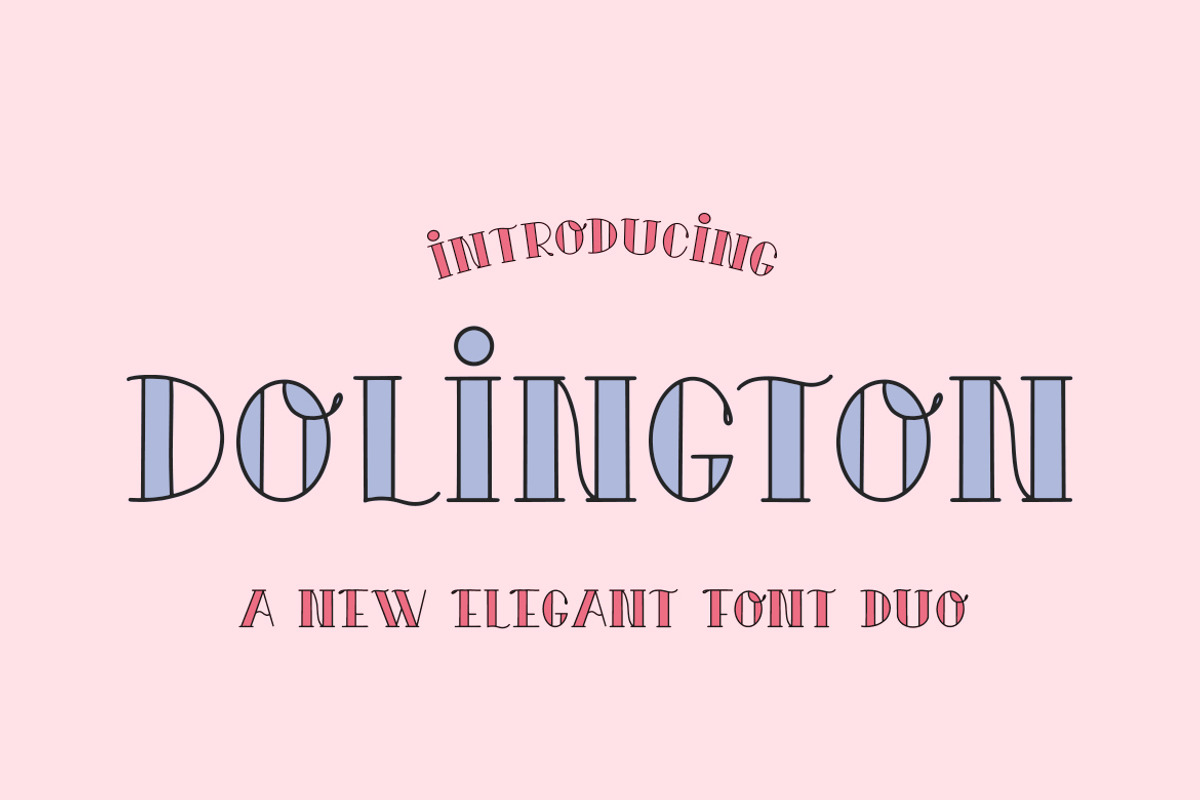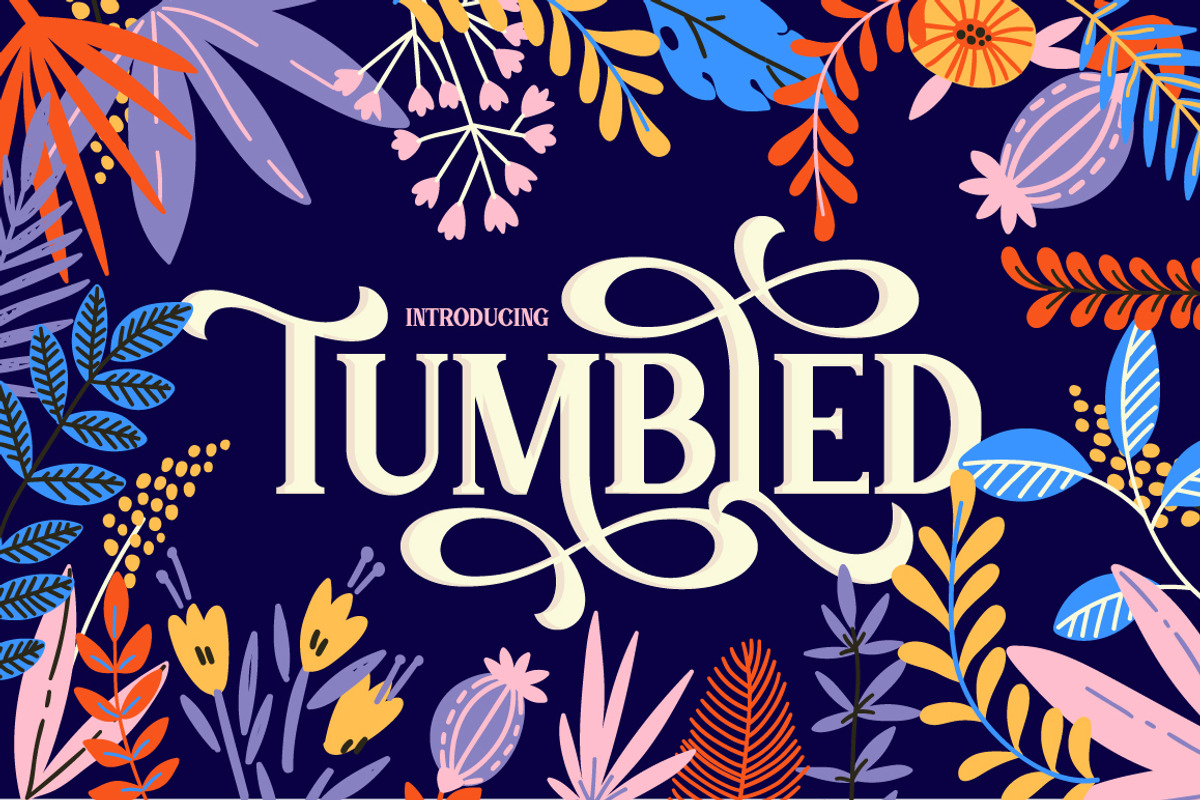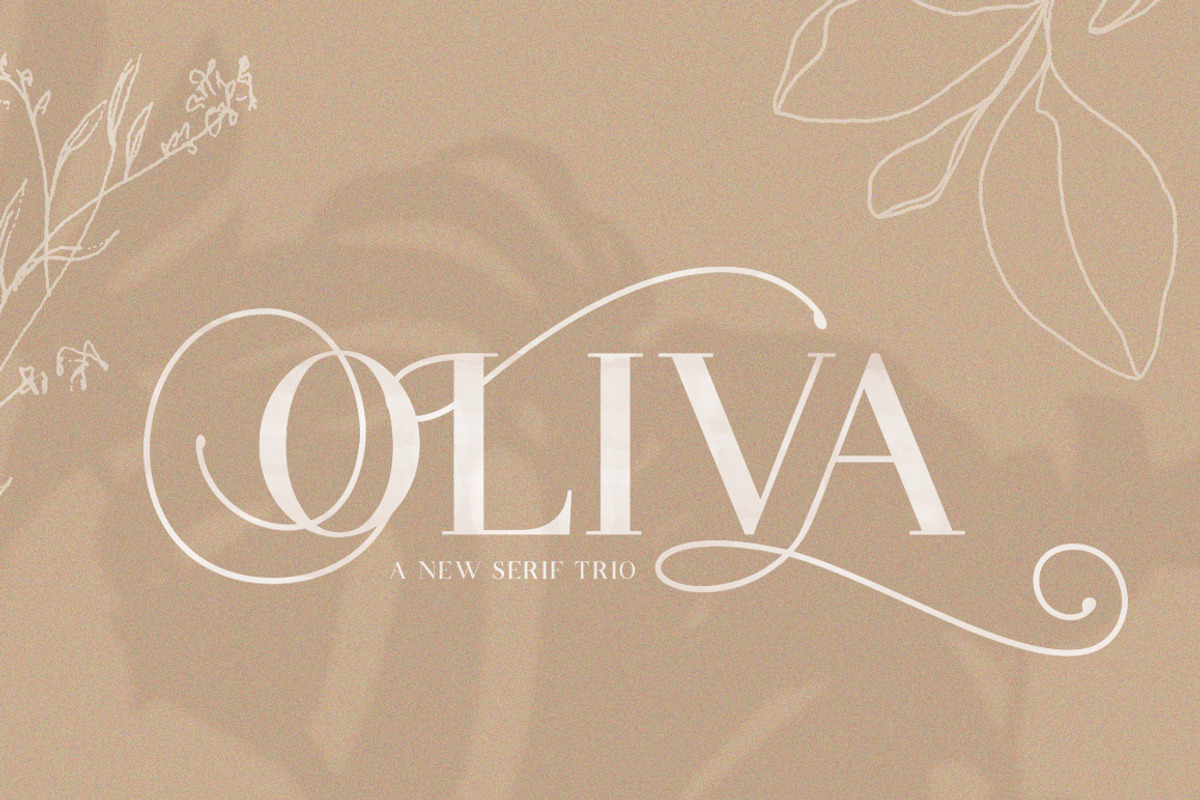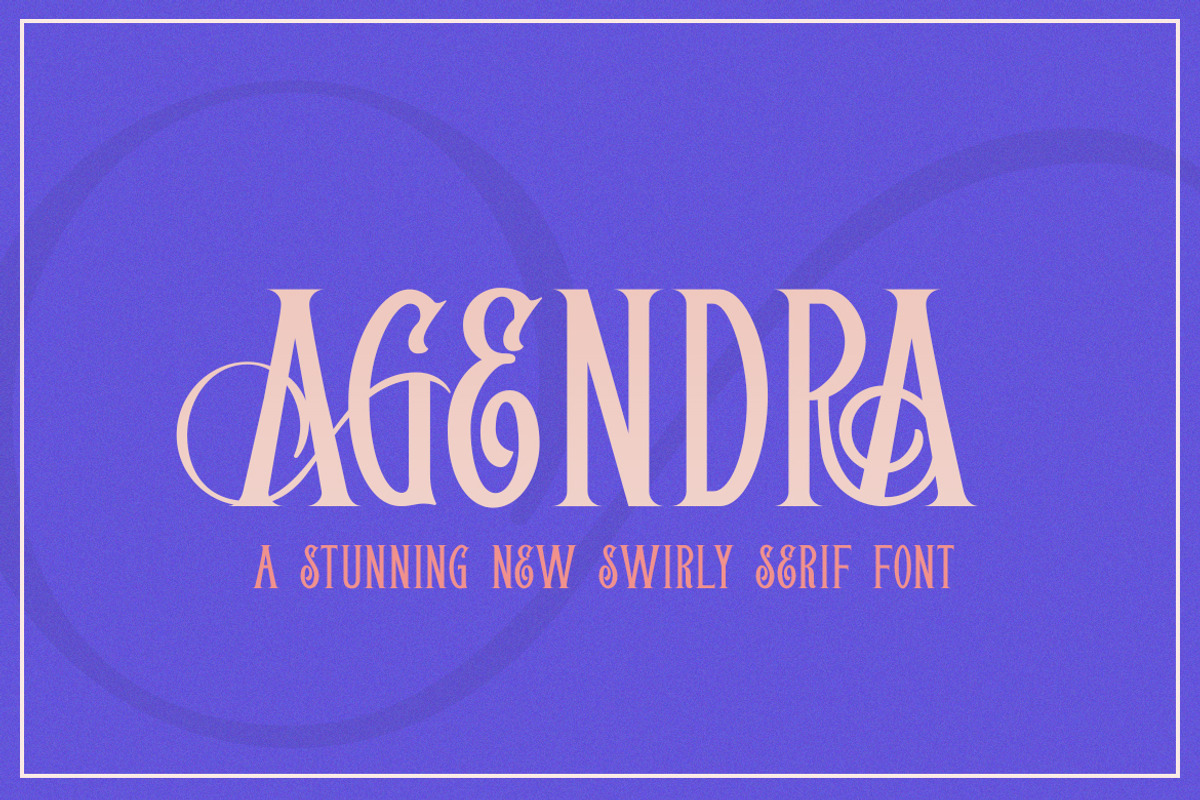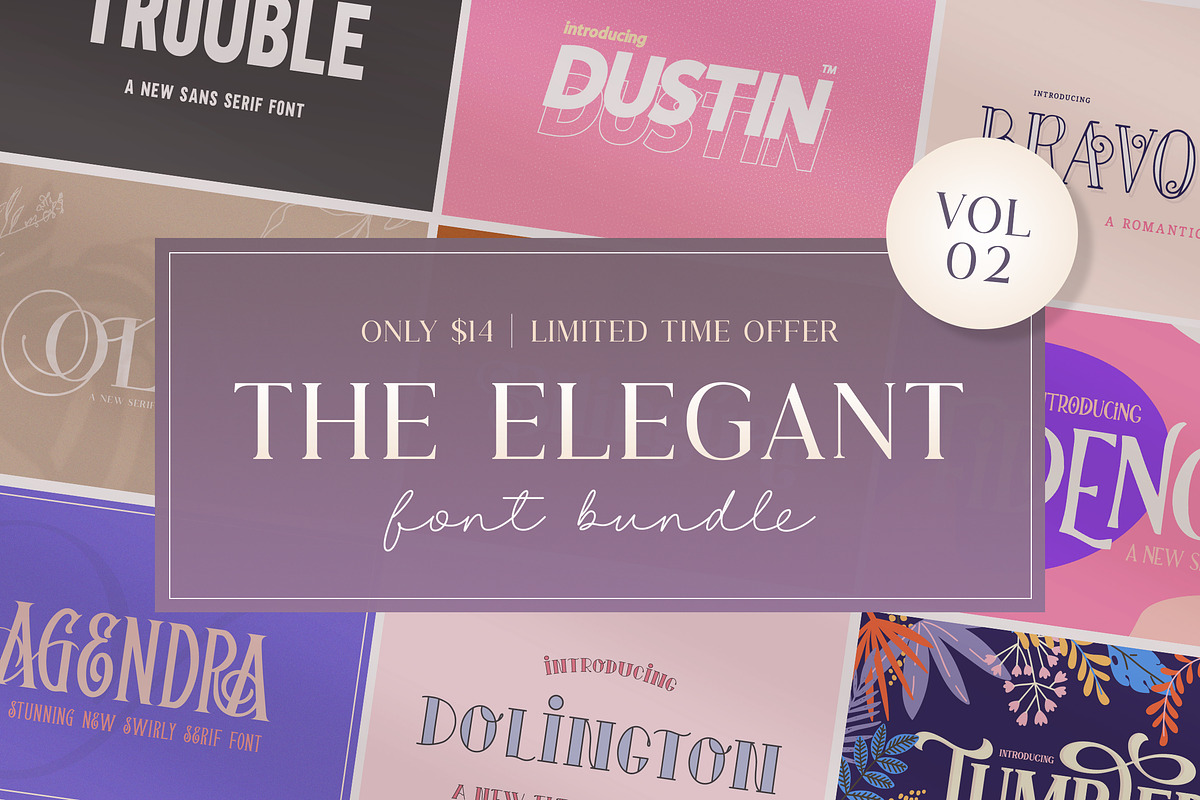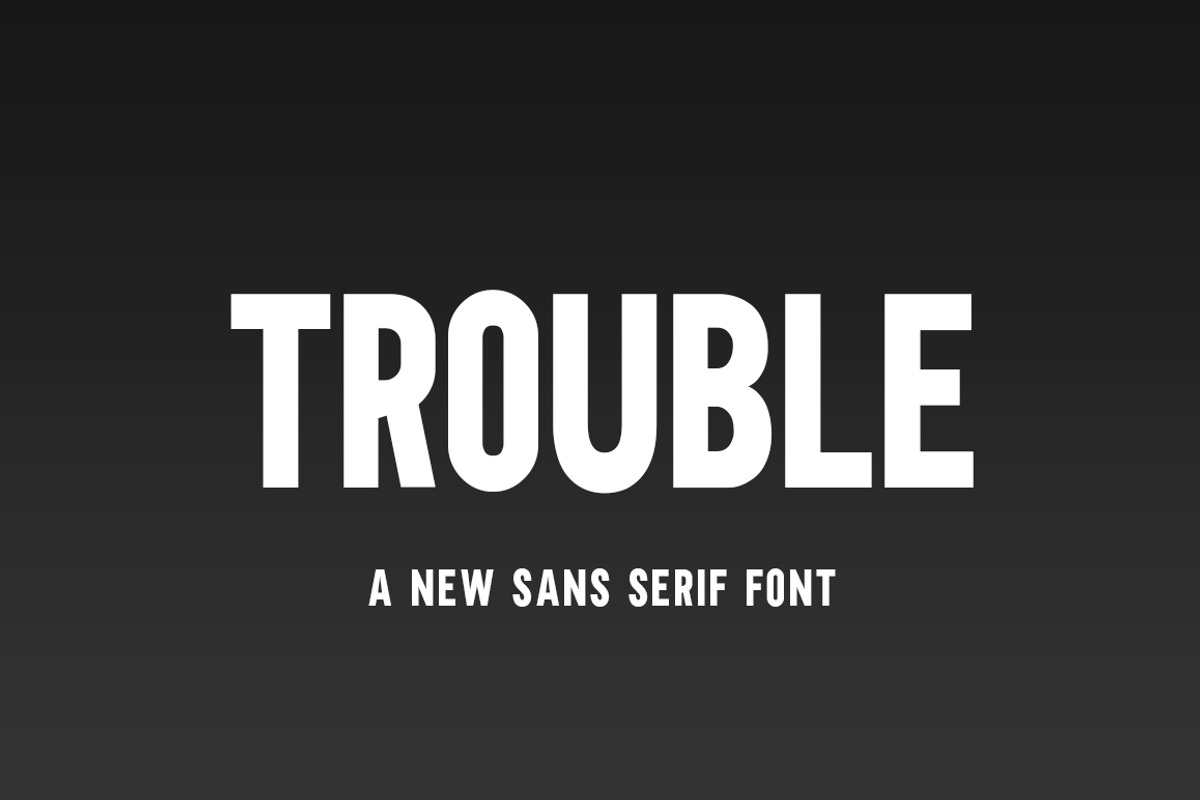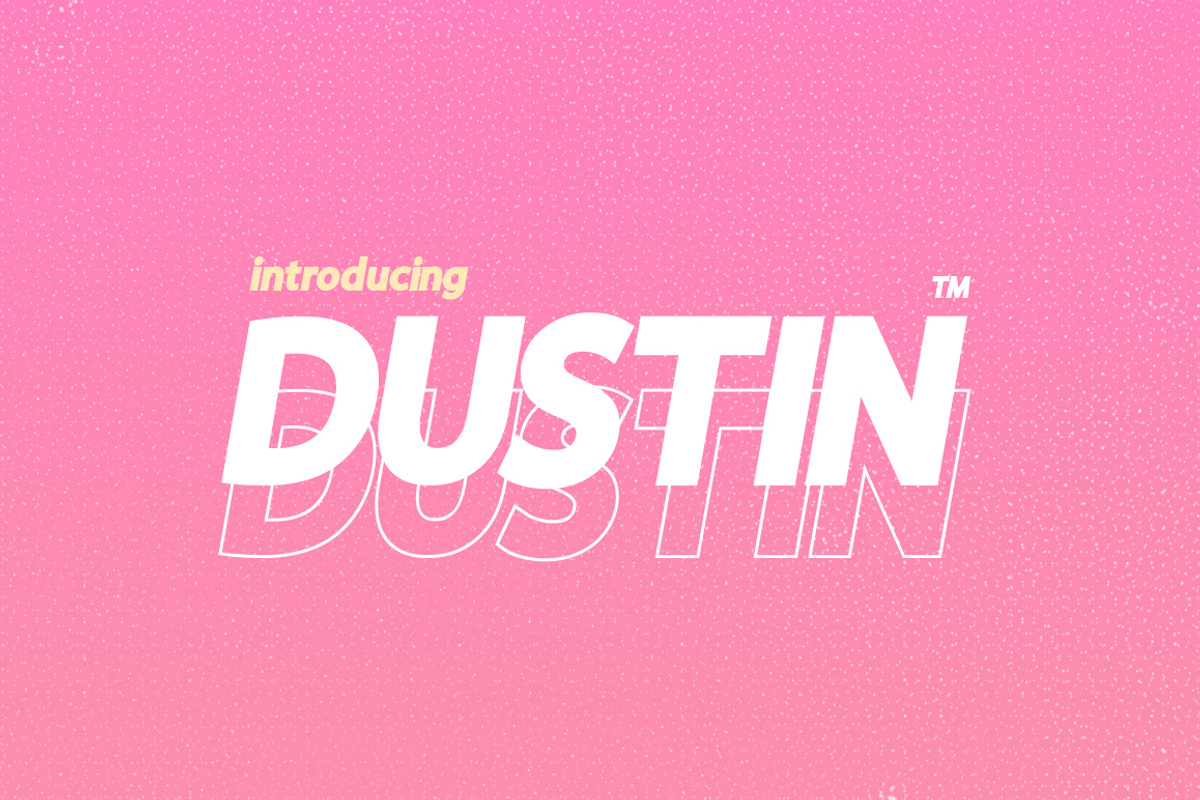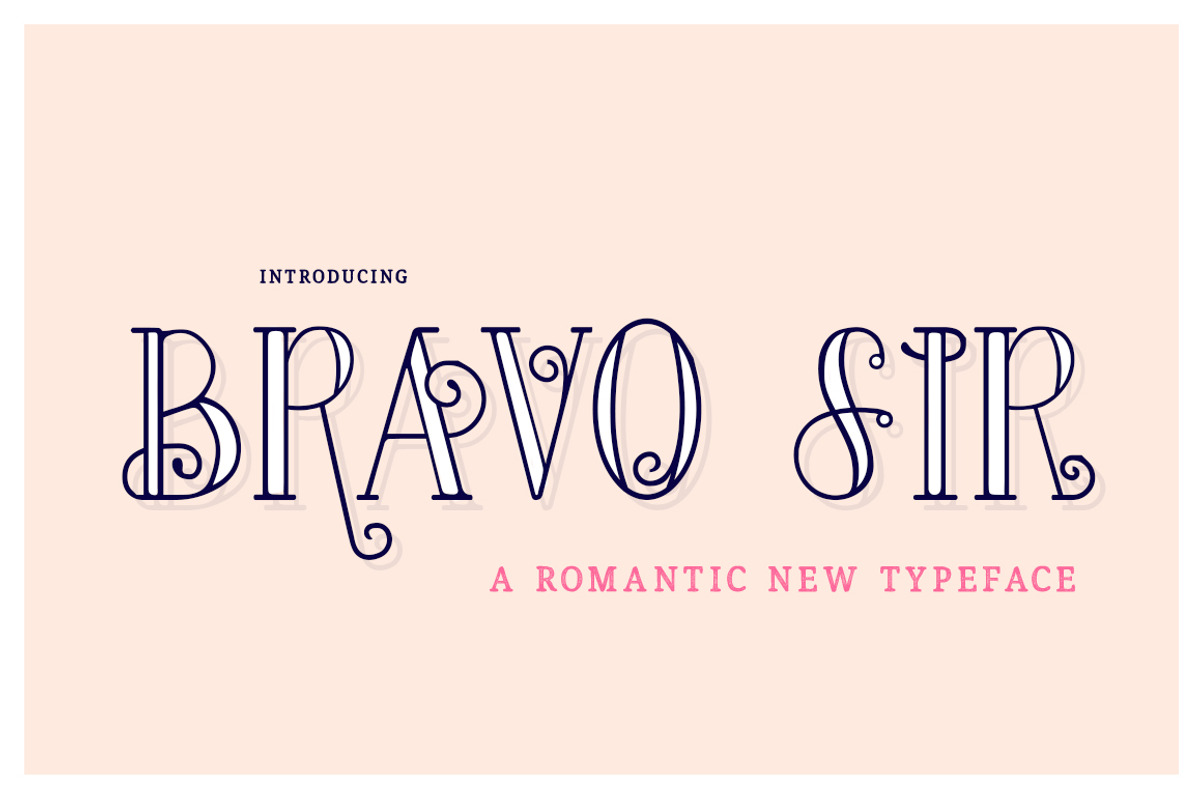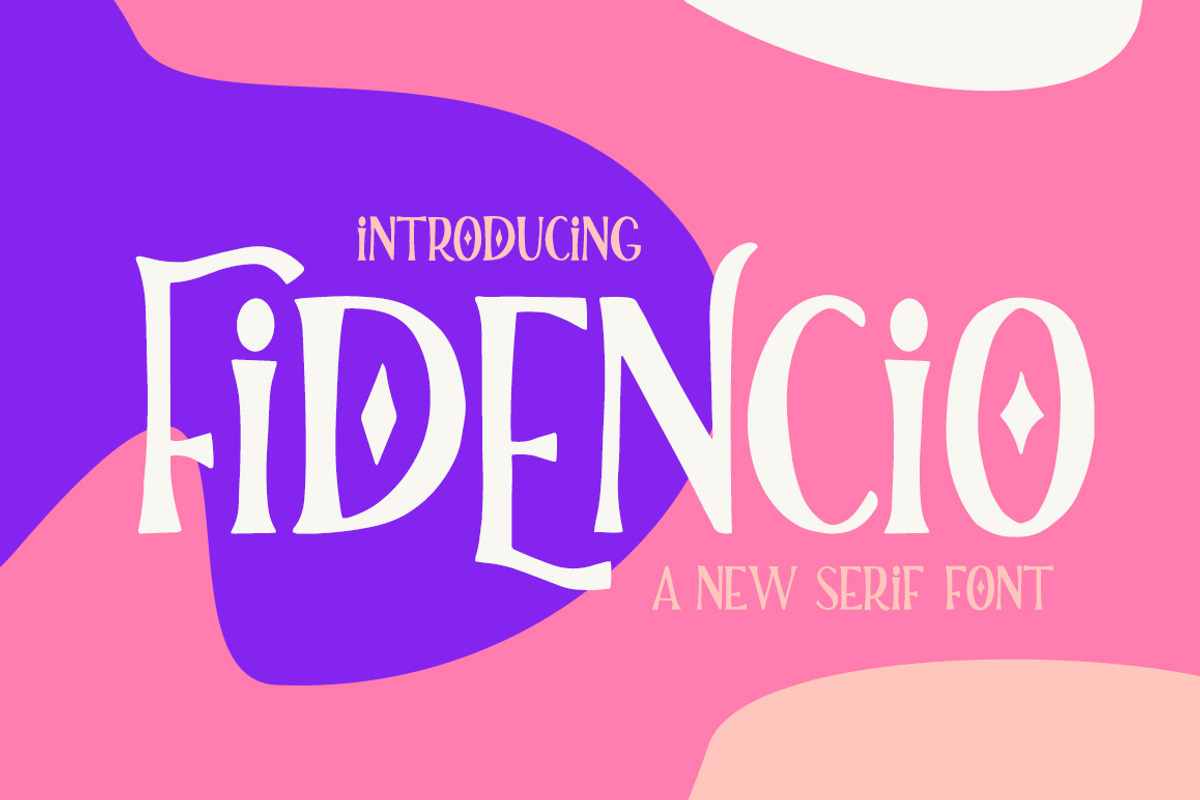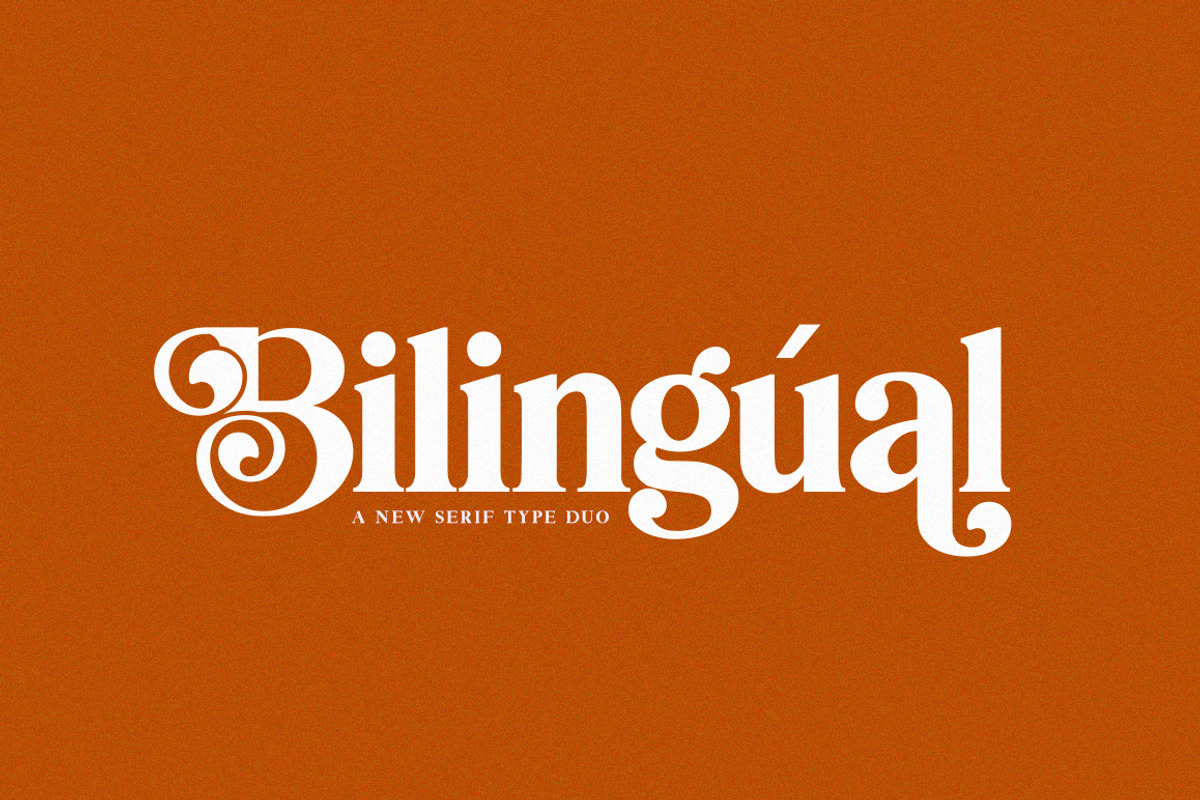
The Elegant Font Bundle - Vol 02
Introducing The Elegant Font Bundle, Volume Two. This huge pack is valued at $72, but is available for a limited period for ONLY $12! Including 19 fonts over 9 font packs, this sophisticated bundle is perfect for logos, branding, crafting, instagram, marketing and so much more.